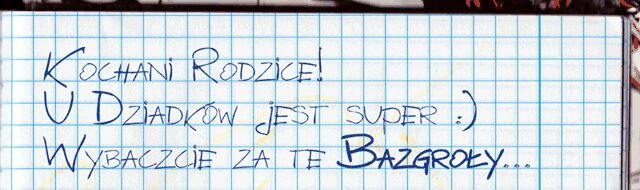
BazgroBy by Tomasz SkowroDski of DJ ZAI is a free handwritten display font with an unruly, marker-drawn look. Long strokes shoot past the letter bodies, and changing widths suggest quick, uneven pressure. The loose spacing makes the lettering feel improvised.
Its sweeping lines can echo energetic sketches and rough fashion illustration on posters or magazine covers. Music merchandise and event graphics also suit the sharp turns and oversized gestures. In branding, the lettering can become part of a hand-drawn emblem rather than serving as a neutral nameplate.
BazgroBy Normal — Presentazione del carattere